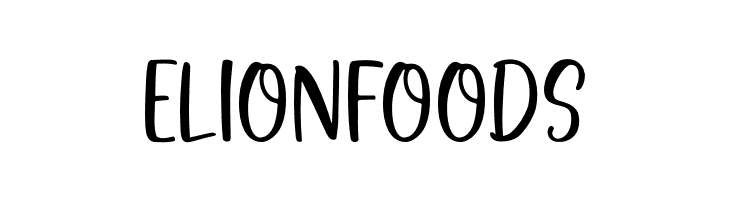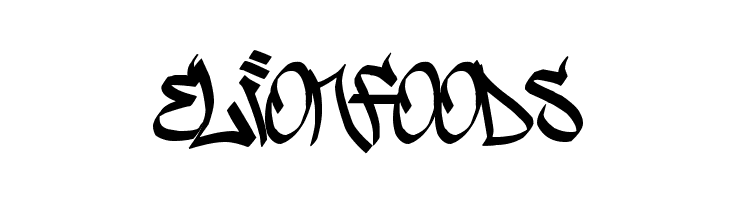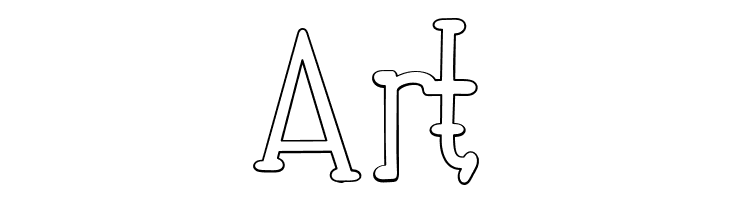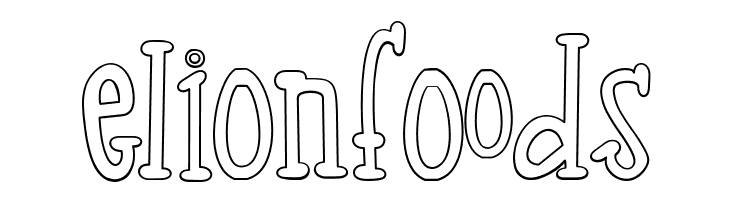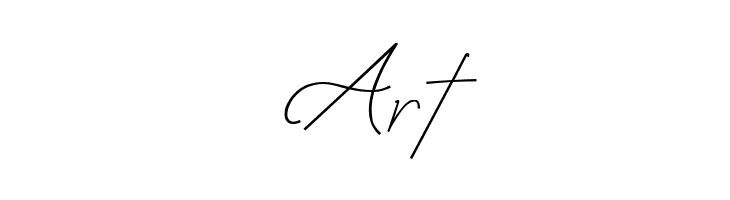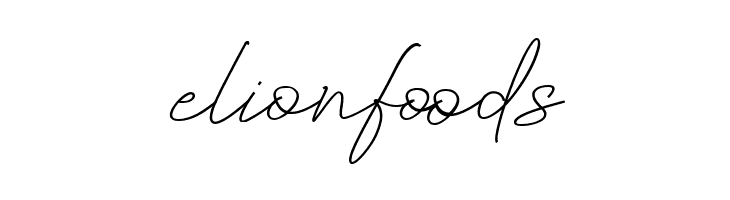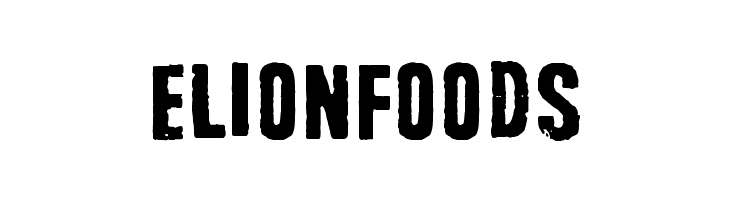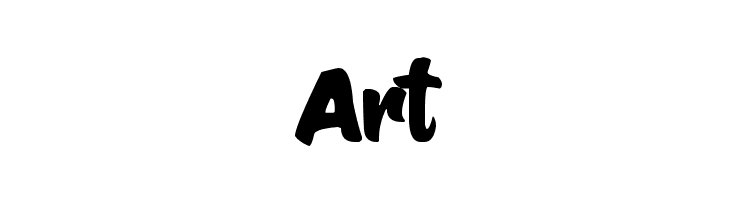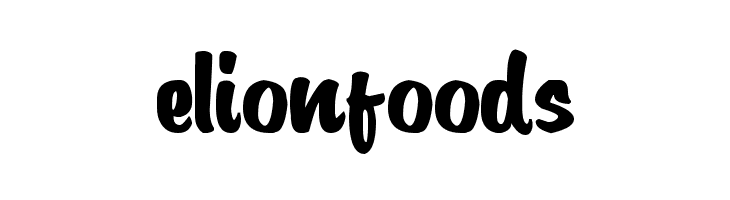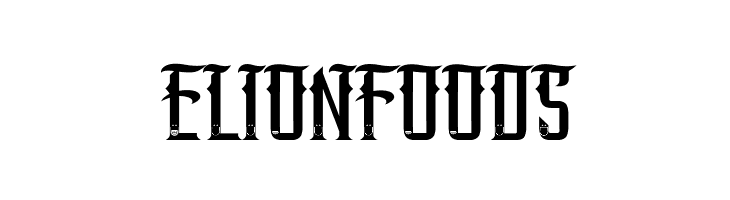
( Fonts by Amazingmax - Maxim Avdeev )
A bold, angular font with a futuristic and aggressive style.
( Fonts by Amazingmax - Maxim Avdeev )
A bold, geometric outline font with a futuristic and dynamic style.
( Marios )
A playful, hand-drawn font with a whimsical and casual style.
( Marios )
A playful, handwritten font with rounded edges and a casual style.
( Fonts by Jadatype )
Bold, expressive handwritten script font.
A lively, handwritten-style font with fluid, dynamic strokes.
A lively and expressive script font with dynamic curves and fluid strokes.
( Fonts by Amazingmax - Maxim Avdeev )
A playful, rounded font with bold, smooth characters and a friendly style.
( Fonts by Amazingmax - Maxim Avdeev )
A bold, slanted font with rounded, smooth characters for a modern look.
( Fonts by Amazingmax - Maxim Avdeev )
A playful, rounded font with bold, smooth curves and a friendly appearance.
( Fonts by Amazingmax - Maxim Avdeev )
A bold, dynamic font with rounded edges and a playful, italicized style.
( Fonts by Amazingmax - Maxim Avdeev )
A pixelated, geometric font with a retro digital style.
( Fonts by Amazingmax - Maxim Avdeev )
A bold, hand-drawn font with an expressive and dynamic style.
( Fonts by Amazingmax - Maxim Avdeev )
A bold, hand-drawn font with an expressive, dynamic style.
( Fonts by Amazingmax - Maxim Avdeev )
A bold, expressive handwritten font with dynamic, irregular strokes.
( Fonts by Amazingmax - Maxim Avdeev )
A bold, hand-drawn font with rugged, expressive strokes.
( Fonts by Amazingmax - Maxim Avdeev )
A bold, hand-drawn font with an expressive and artistic style.
A bold, expressive brush-style font with a hand-painted look.
( Fonts by Kristian Immonen )
A playful, hand-drawn font with irregular strokes and a casual aesthetic.
( AMAZING FONTASY )
A bold, playful font with spider icons for a whimsical touch.
A modern, geometric typeface with a clean and professional appearance.
A modern, italicized font with a sleek and professional design.
A modern, italic sans-serif font with a sleek and dynamic style.
A modern, light sans-serif font with a clean and minimalist design.
A sleek, modern, light italic font with elegant, smooth strokes and balanced proportions.
A bold, geometric font with a modern and structured design.
A bold, italicized sans-serif font with a dynamic and modern style.
( Fonts by Mr.Soon Design )
A bold, spooky font with irregular edges, perfect for Halloween themes.
( Typhoon Type - Suthi Srisopha - www.typhoontype.net )
A dynamic and flowing script font with elegant cursive letterforms.
( Fonts by StringLabs Creative Studio )
A playful, bold font with whimsical, exaggerated letterforms.